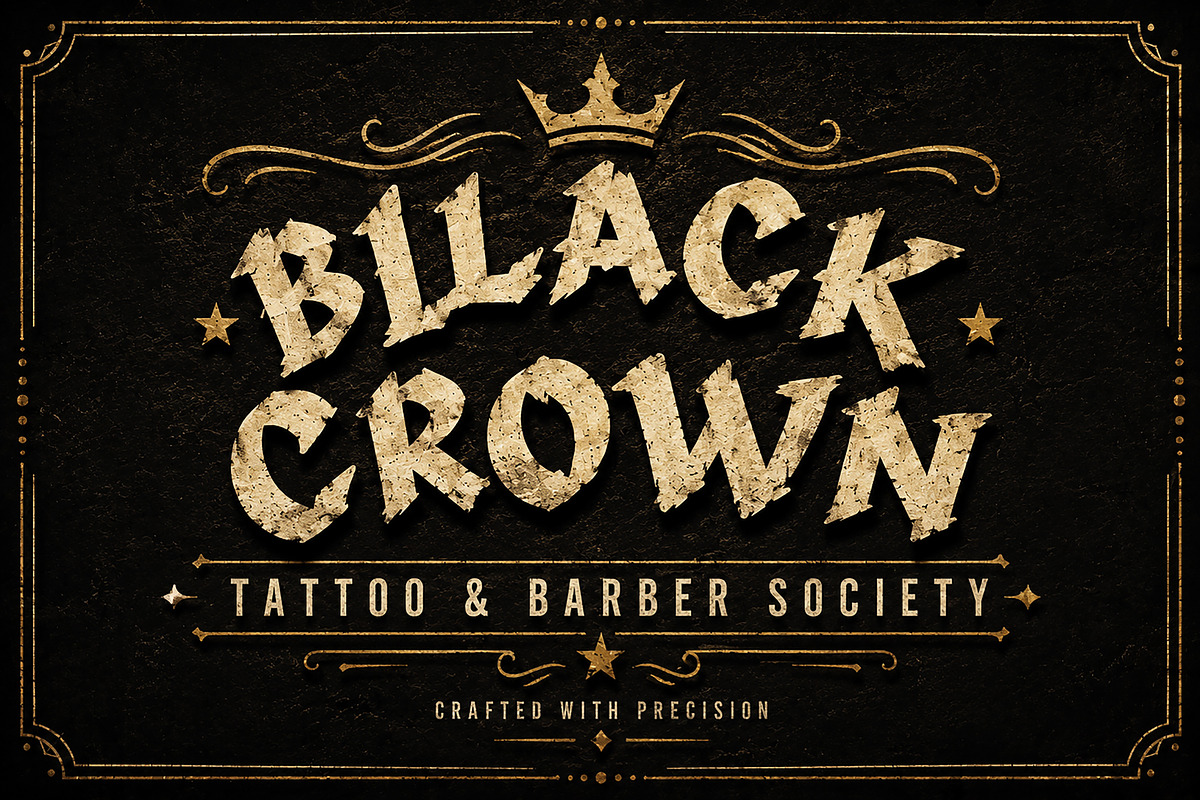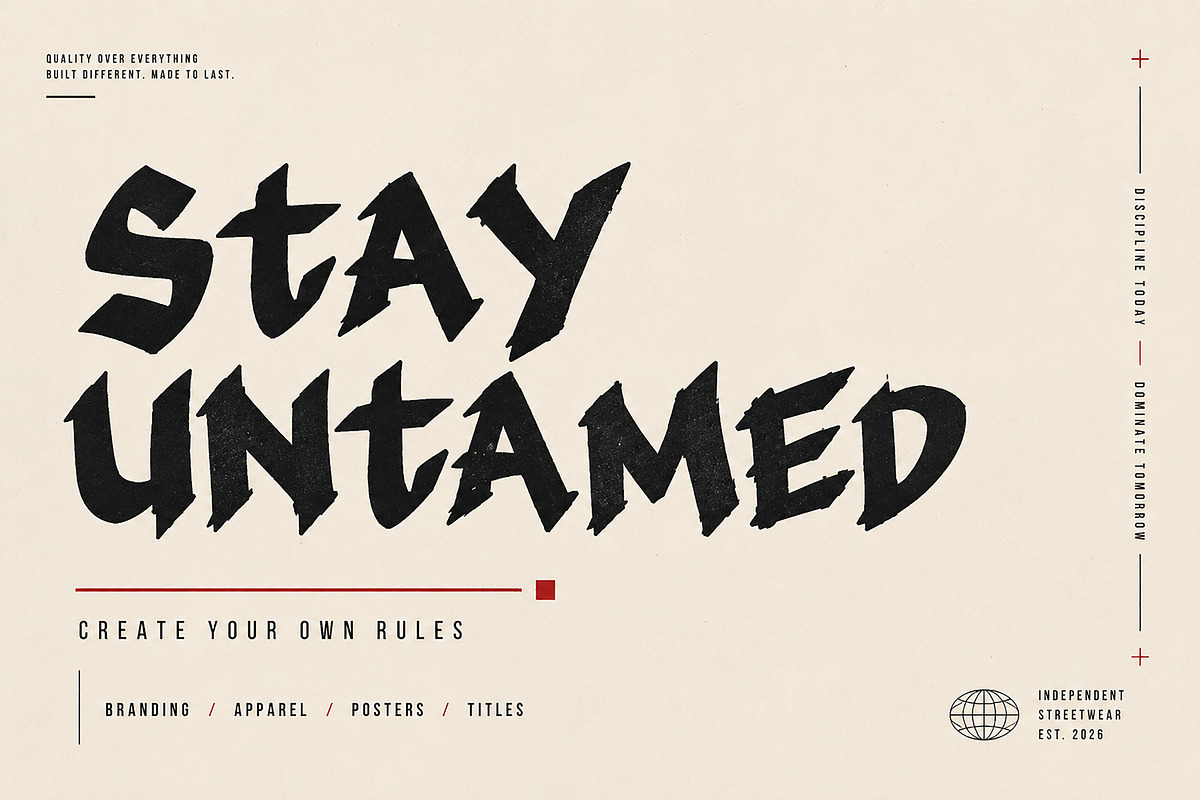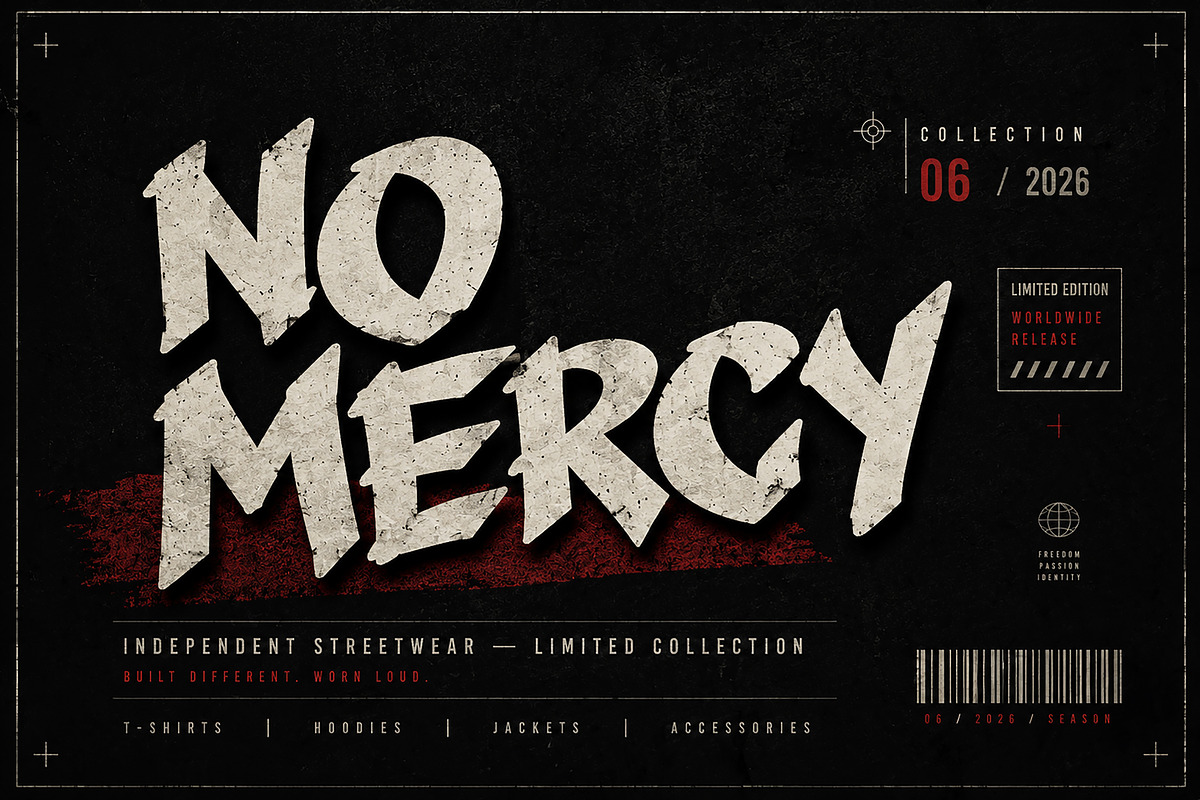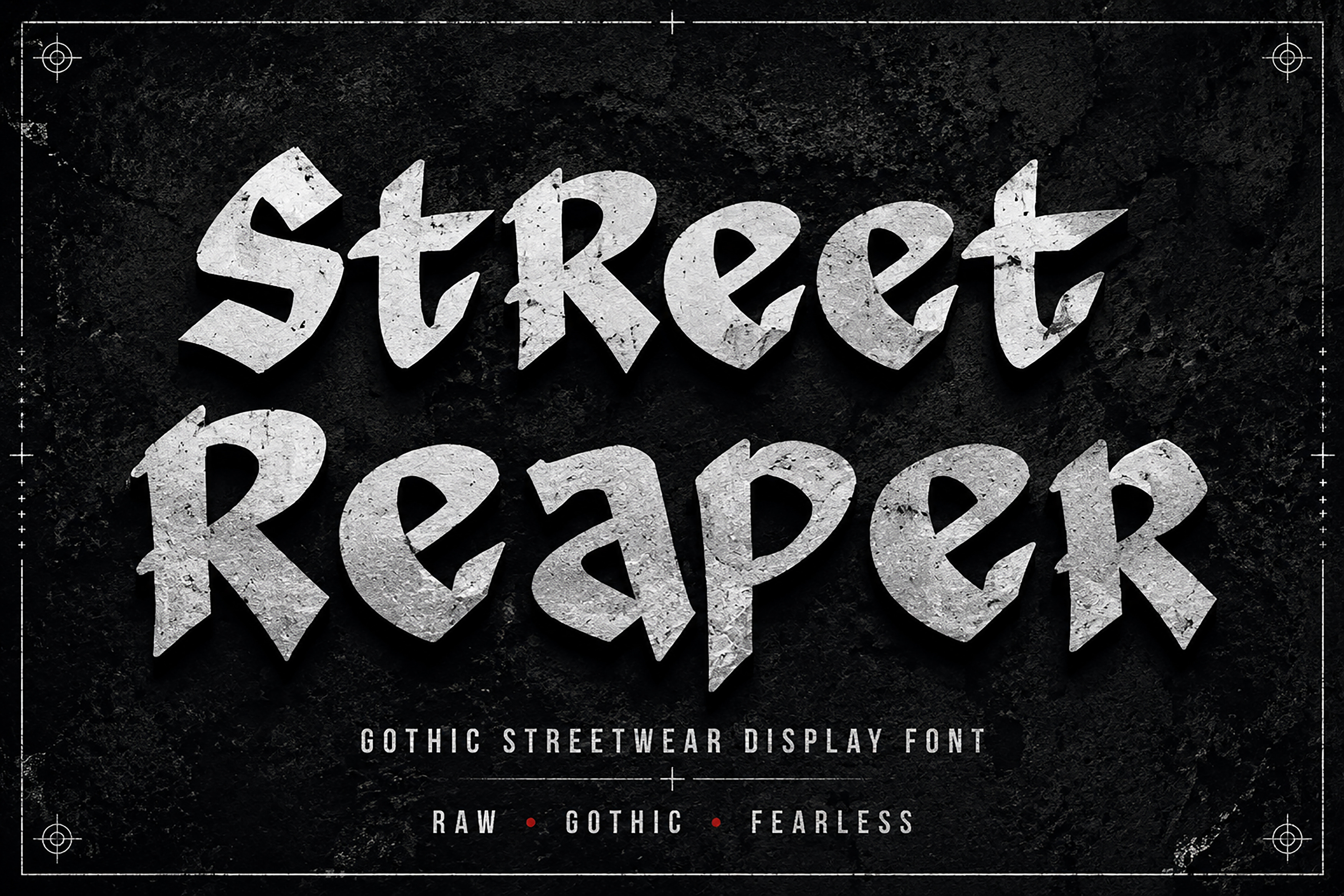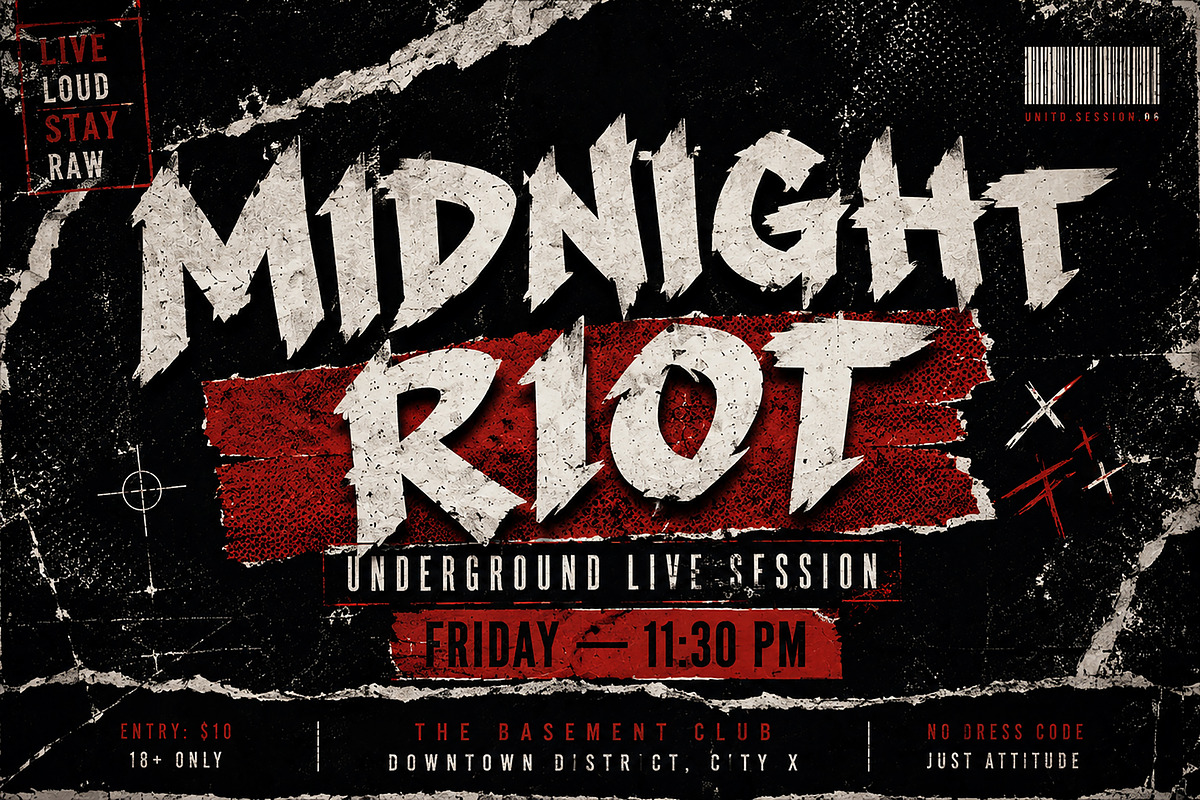
Street Reaper – Gothic Font
Street Reaper – Gothic Streetwear Display Font
Street Reaper is a bold gothic display font inspired by underground street culture, tattoo art, metal aesthetics, and modern streetwear branding. With its sharp handcrafted letterforms and fearless attitude, this font is designed to make every headline stand out with power and personality.
Whether you're creating apparel graphics, logos, album covers, posters, branding, or social media designs, Street Reaper delivers a strong visual impact that captures attention instantly.
Introducing Street Reaper, a premium gothic display font crafted for designers who want to create bold, rebellious, and unforgettable designs.
Inspired by streetwear fashion, tattoo culture, underground music scenes, and dark urban aesthetics, this typeface combines handcrafted gothic shapes with modern display styling to create an aggressive yet highly usable font.
Its unique letterforms are perfect for projects that require a powerful visual identity while maintaining excellent readability in large titles and branding.
Whether you're designing clothing brands, merchandise, music artwork, gaming graphics, or premium packaging, Street Reaper adds an unmistakable edge to your work.
Streetwear Branding
Clothing Logos
Tattoo Studio Branding
Barbershop Identity
Merchandise Design
T-Shirt Graphics
Hoodie Prints
Album Covers
Metal & Rock Posters
Hip-Hop & Rap Artwork
Festival Posters
Gaming Titles
YouTube Thumbnails
Editorial Headlines
Posters
Stickers
Apparel Labels
Creative Branding
Why You'll Love Street Reaper
✔ Premium handcrafted gothic style
✔ Perfect for modern streetwear branding
✔ Strong and eye-catching display font
✔ High readability at large sizes
✔ Ideal for bold typography compositions